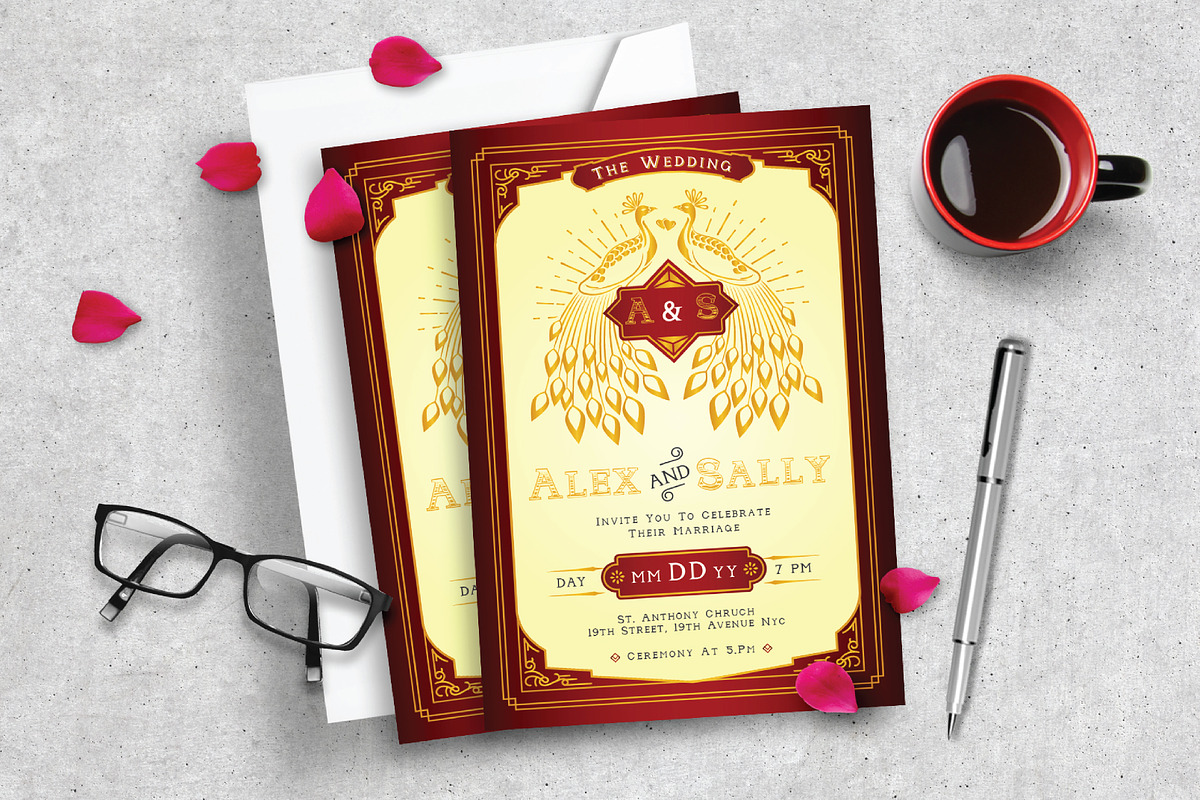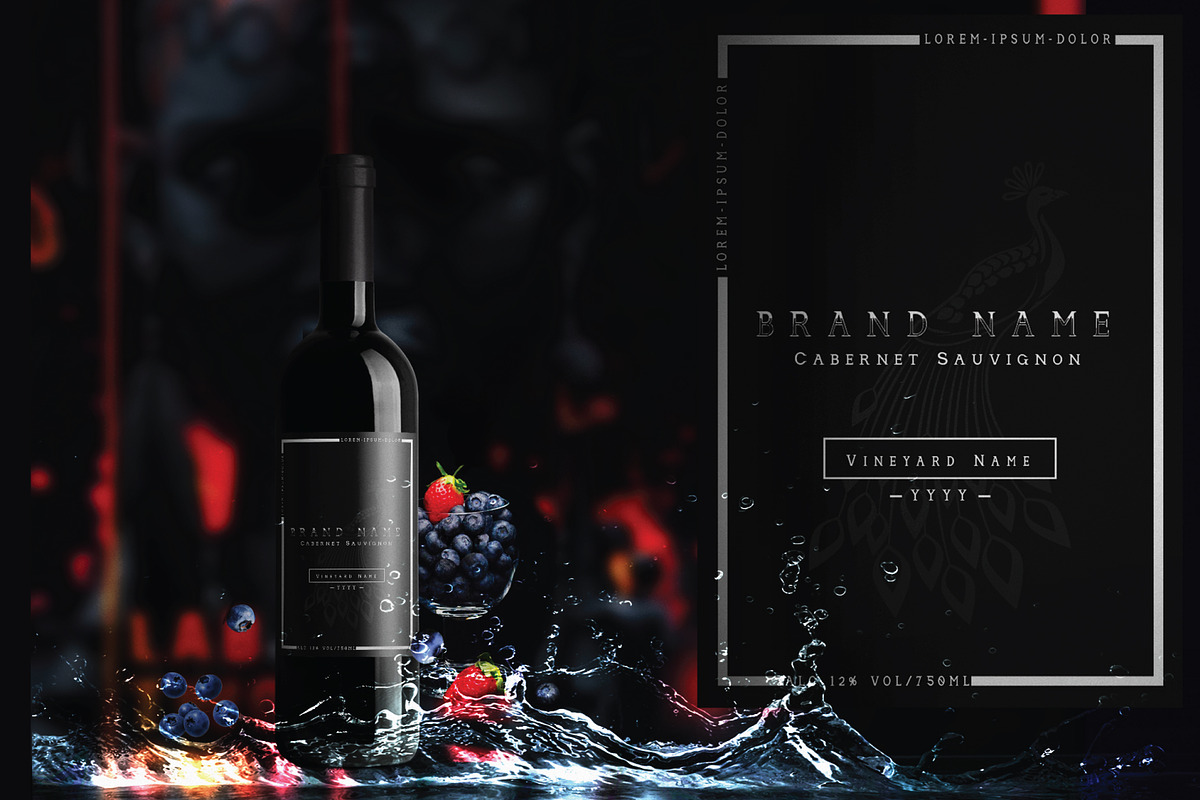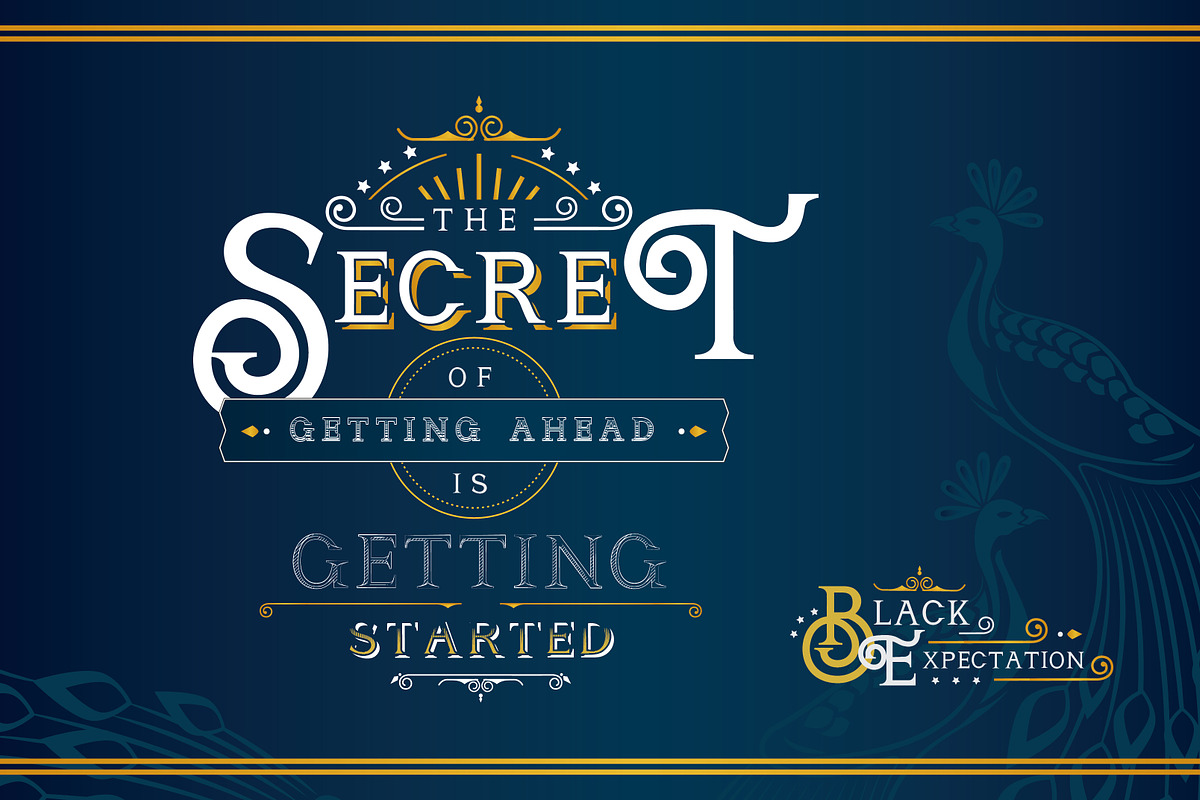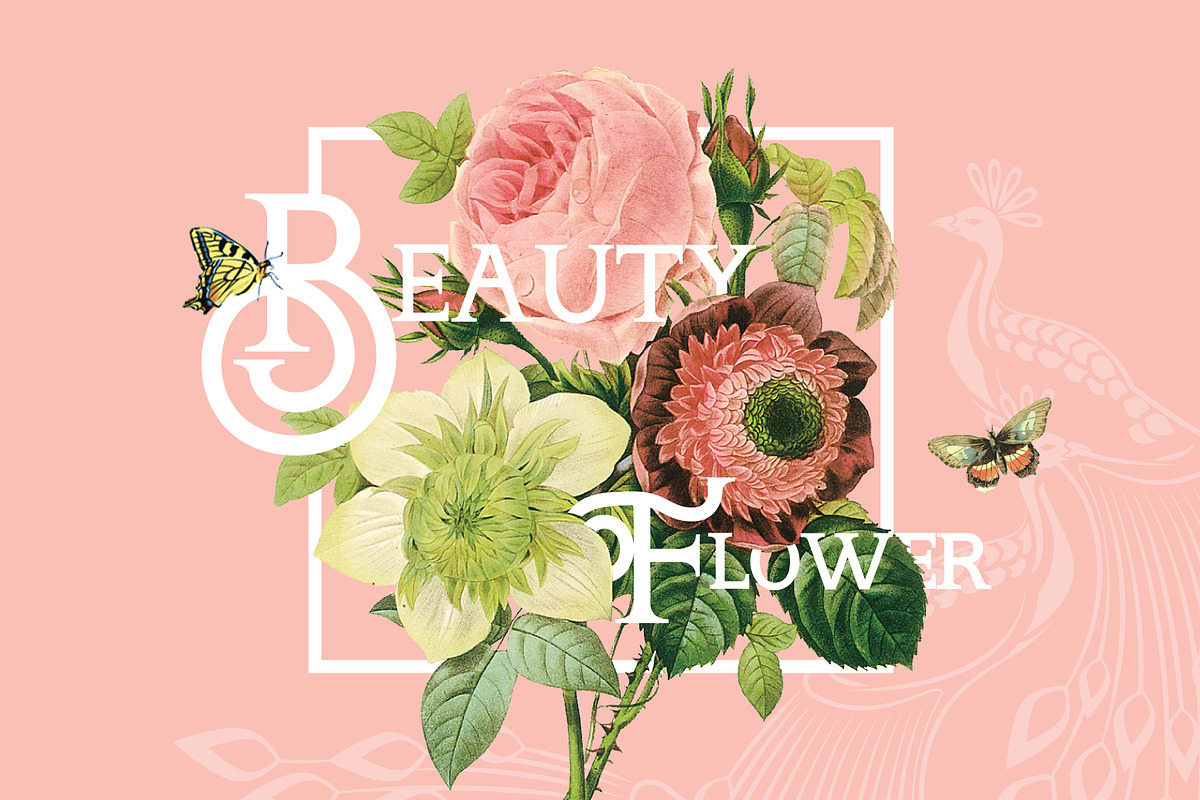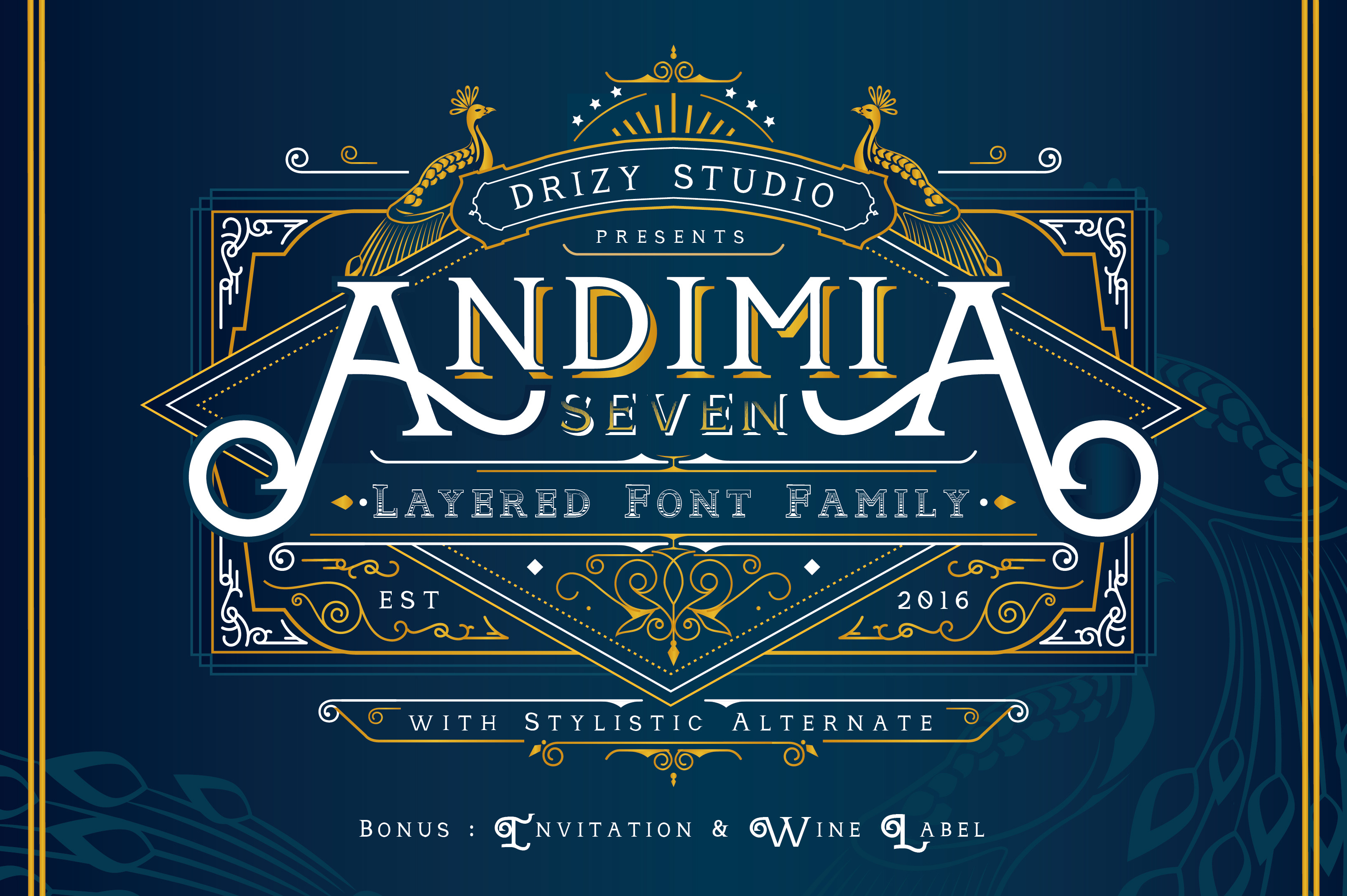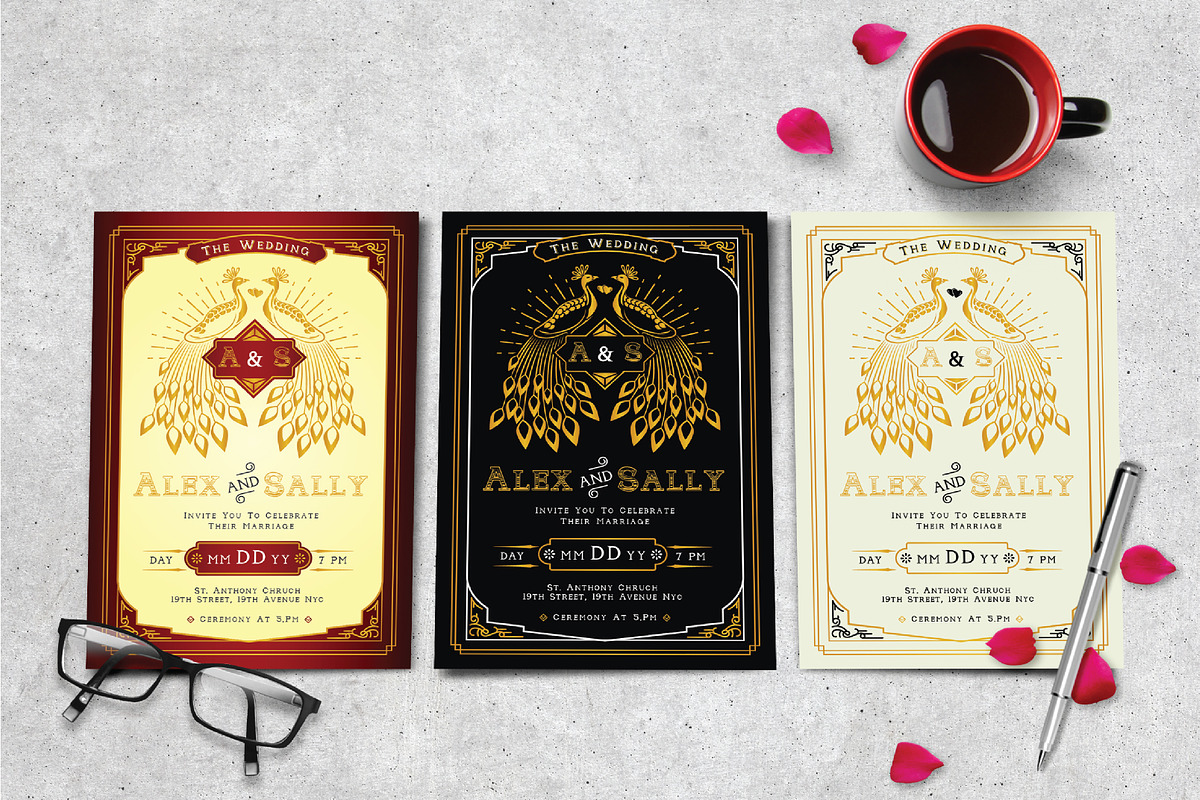
Andimia Layered Fonts Family
Introducing the new Andimia Typeface, another serif font with classic style. The font comes with all the basic Latin glyphs, punctuation, and numerals. Create your own style as you want with 7 Layers, Stylistic Alternates that Allows you to mix and match pairs of letters to fit your design, and Ornaments Pack to decorate your work with this font.
Andimia is a display font that provides a more clean and elegant design. You can use this font for various purposes, such as logos, wedding invitations, t-shirts, posters, labels, greetingcard, letterhead, book cover, and much more! Andimia included bonus 'Wedding Invitation' and Wine Label Templates.
The layers only to uppercase and lowercase
Andimia's layer is better used for headlines, logos, short words, and not suitable for bodytext, because the effects are too detailed ;)